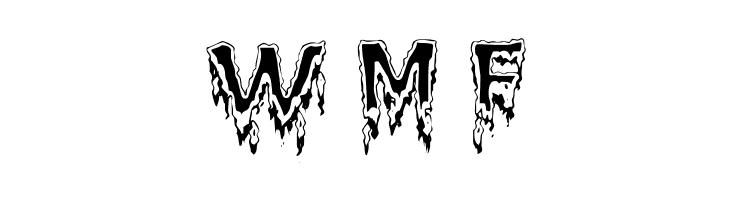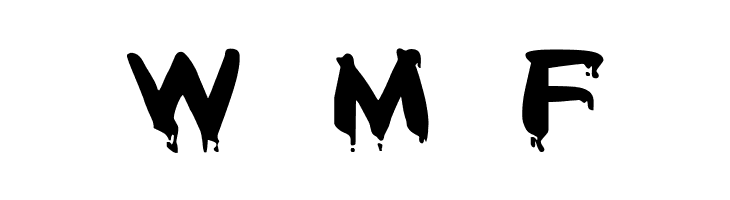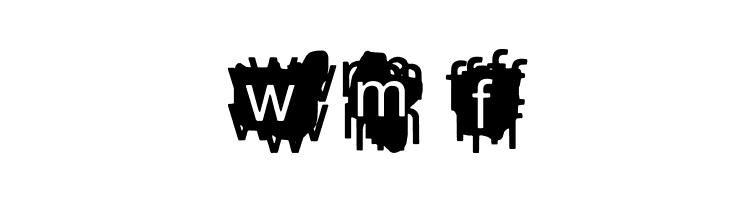
( Font by Ben Nathan - www.hafontia.com )
A bold, dynamic font with fluid, organic shapes resembling liquid or dripping paint.
( Fonts by Mr Fisk - Mike Larsson - fontorama.net )
A bold, dripping font with a graffiti-inspired style.
A dripping, eerie font perfect for horror-themed designs.
( Fonts by www.norfok.com - Norfok® Incredible Font Design - Thomas W. Otto )
A bold, dripping font with a spooky, horror-themed style.
( Fonts by www.fontmenu.com )
A bold, dripping font with a playful, liquid-like appearance.
( Fonts by Rob Dobi - Toxic Type - www.dobi.nu )
A bold, cartoonish font with a dripping, hand-drawn style.
( Fonts by Levi Halmos )
A bold, dripping font with a rebellious, graffiti-inspired style.
A playful, whimsical handwritten font with looping, flowing letterforms.
( Fonts by Utopiafonts )
A dynamic calligraphic font with fluid, sweeping strokes and artistic flair.
( Fonts by Renn Crump - http://moorstation.org/typoasis/designers/renncrump/ )
A bold, artistic font with a dripping paint effect, perfect for creative projects.
A dramatic, edgy font with sharp serifs and a distressed, dripping appearance.
A bold, dripping font with a gothic flair and high contrast strokes.
( Fonts by Patrick Broderick )
A spooky, elongated font with a dripping, horror-inspired design.
A bold, high-contrast font with a dripping effect, ideal for dramatic and spooky designs.
( Fonts by www.re-type.com - Ramiro Espinoza )
A bold, condensed font with a modern and sleek appearance.